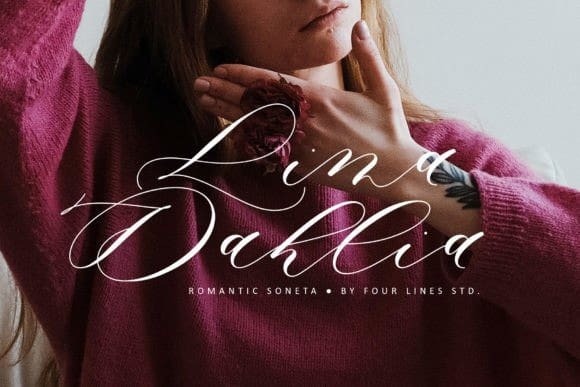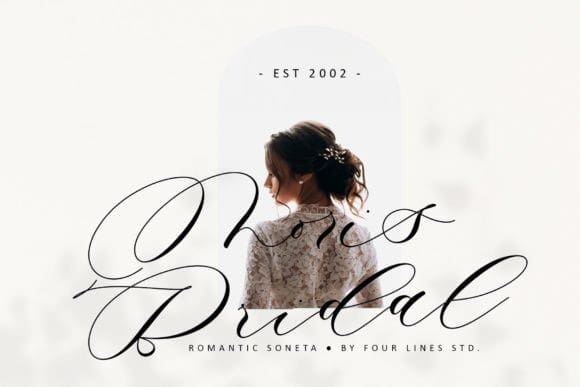
Romantic Soneta Font
Romantic Soneta Font, is a font inspired by modern calligraphy that are perfect for wall displays, wedding invitations, social media post, branding, labels, invitations, stationery, and any project that requires a Calligraphy taste.
Romantic Soneta will add a luxury spark to any design project that you wish to create! This font is PUA encoded which means you can access all of the amazing glyphs and ligatures with ease!